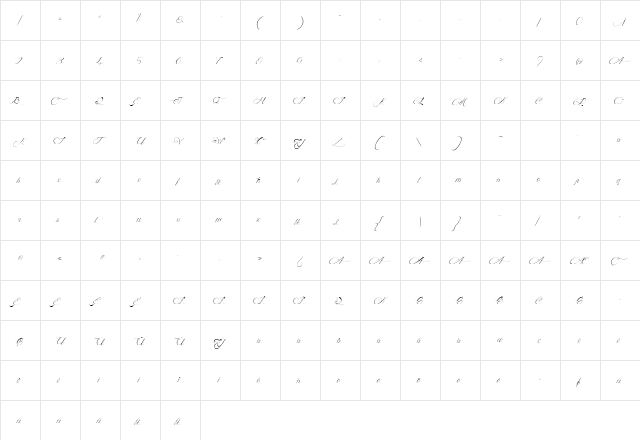
Midnight Legend Regular
| Foundry | Cataleya Butcher |
| Designer | Cataleya Butcher |
Design Context for Midnight Legend Typeface
Midnight Legend is a composed and adaptable typeface that performs quietly and consistently across a wide range of design contexts.